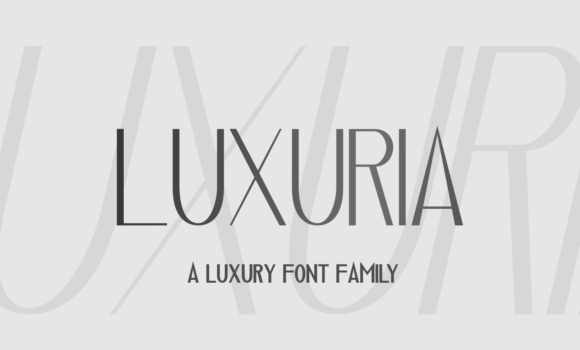
luxuria
Luxuria Font – Free Download Introduction to Luxuria Font Luxuria is an incredibly elegant and stunning sans serif font. 📸 Preview Gallery 6 images 📌 Product Name Luxuria Font 👤 Author GartypeStudio 📂 Category Explore ⬇️ Download Luxuria Font FREE